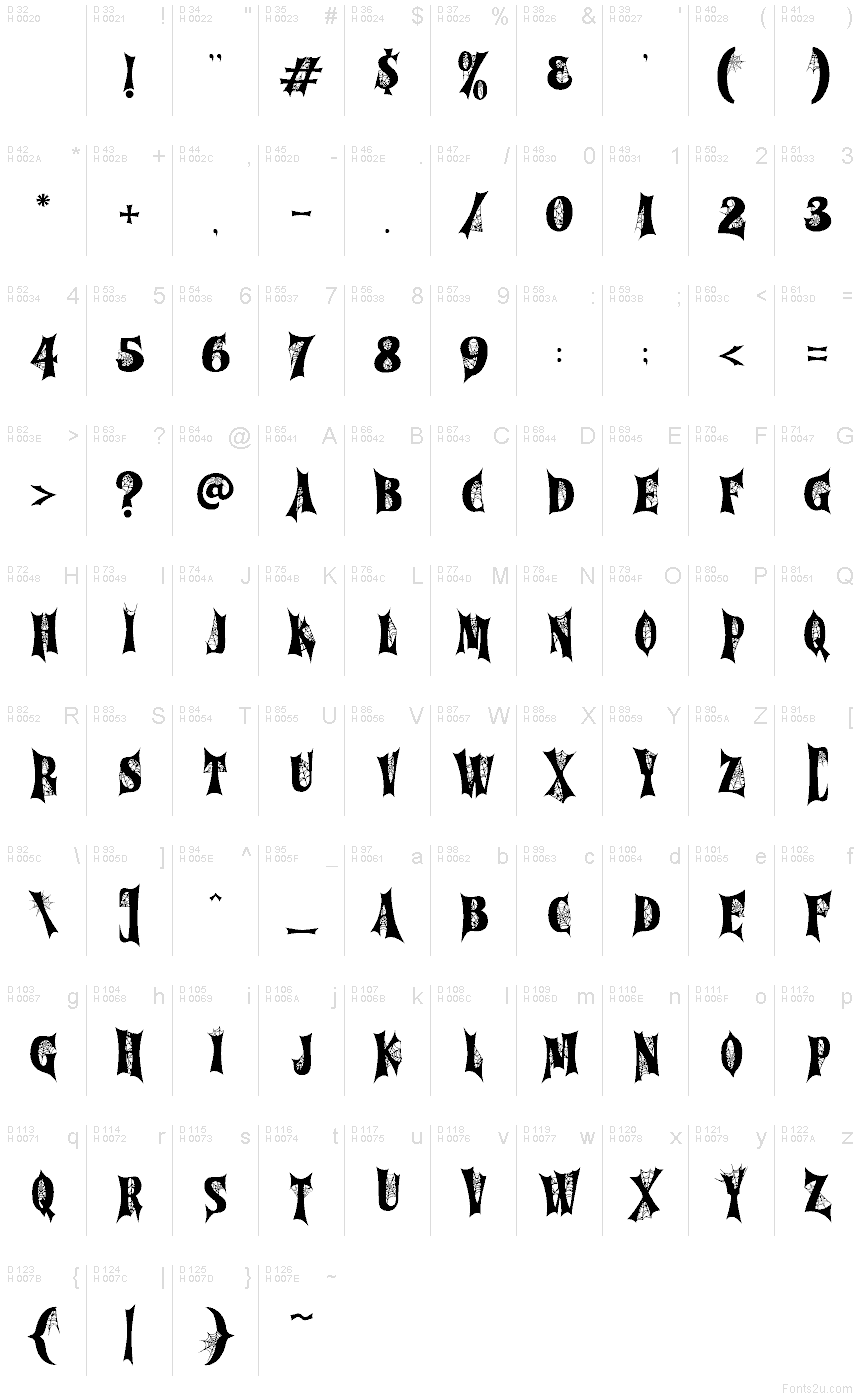
Cursed Gothic Web
Cursed Gothic Web font by PutraCetol Studio is a free Halloween gothic display font. Part of the Cursed Gothic family, it’s built around letters laced with intricate spiderweb textures and thorn-like spurs that taper to sharp points. The forms feel tall, scratchy, and slightly irregular, giving headlines a creeping, cinematic tension without losing legibility at larger sizes.
Using Cursed Gothic Web, you can brand haunted house posters, party invites, horror stream thumbnails, spooky book covers, escape-room signage, seasonal merch, and social promos that need instant bite. This free font shines when set large; pair it with a clean sans for body copy to keep the webs and spikes center stage.